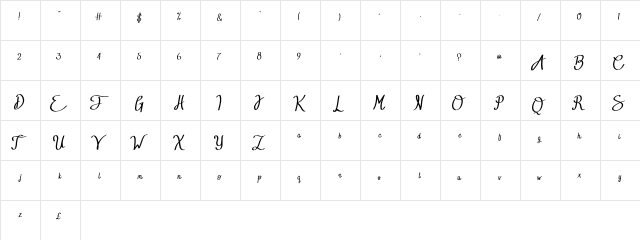
BTX-RADIANT-SUNSHINE Font Preview
BTX-RADIANT-SUNSHINE RADIANT-SUNSHINE
BTX-RADIANT-SUNSHINE Font Details
Design Context for BTX-RADIANT-SUNSHINE Typeface
BTX-RADIANT-SUNSHINE takes a measured approach to typography — its balanced proportions and neutral character make it a reliable workhorse for both digital and print work.